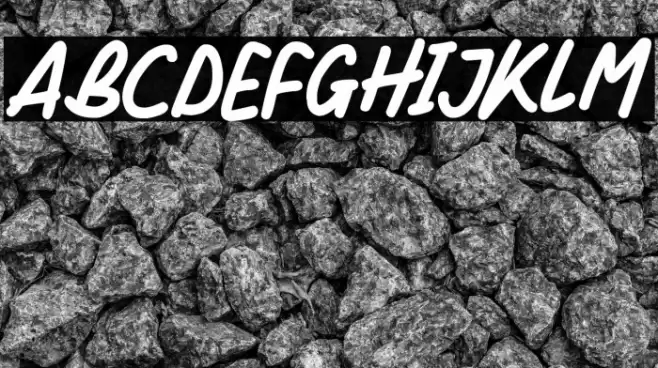
Silky Smooth Font
Silky Smooth Description
This font features a bold, handwritten style with smooth, flowing curves that give it a dynamic and energetic appearance. The letters are slightly slanted, adding to the casual and informal feel. The strokes are consistent in thickness, providing a uniform look across all characters. The font maintains a good balance between readability and style, making it suitable for various creative applications. Its playful yet legible design is ideal for projects that require a personal touch.
A bold, handwritten font with smooth, flowing curves and a casual, energetic style from Comic fonts.
- Proposed Projects: Ideal for greeting cards, posters, branding, and social media graphics where a personal and dynamic touch is desired.
- Overall Style: Casual, Energetic